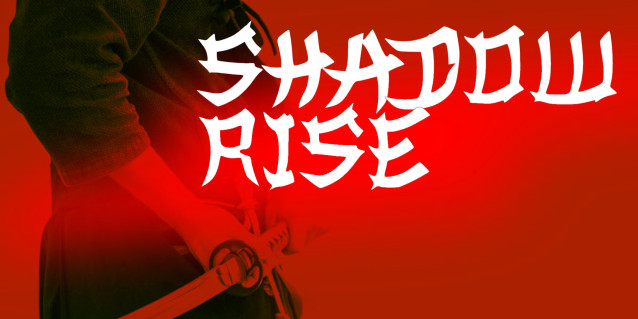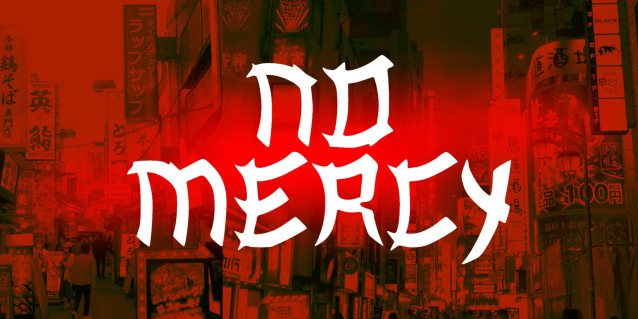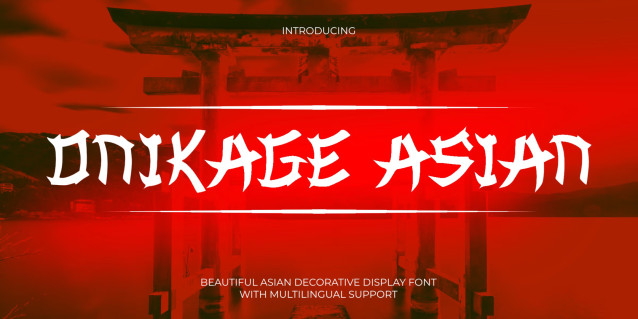
Onikage Asian Display Font
Onikage Asian is a bold display typeface inspired by Japanese aesthetics, tribal shapes, and modern blackletter style. Designed with sharp edges and aggressive letterforms, this font delivers a strong dark atmosphere perfect for eye-catching visual projects.
Its unique character combines gothic energy, streetwear culture, and fantasy vibes, making it ideal for logos, posters, album covers, gaming titles, branding, apparel designs, and creative headlines.
Whether you are creating a cyberpunk concept, metal artwork, or urban streetwear branding, Onikage Asian adds a powerful and distinctive visual identity to your design.
Drawing heavy inspiration from traditional Asian calligraphy and Japanese cultural aesthetics, this font features bold, sharp strokes and dynamic angles that convey strength, mystery, and ancient heritage. Its unique visual character replicates the look of traditional brush ink, making it an exceptional choice for clothing lines, martial arts promotions, anime or gaming content, movie posters, and striking editorial layouts. Designed to make a fierce and memorable impact, Onikage Asian brings an authentic oriental edge and modern streetwear energy to any creative project.